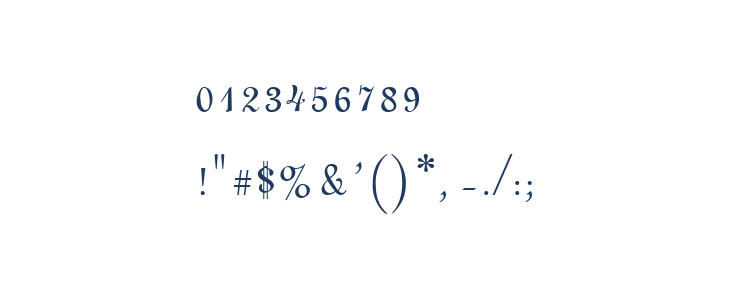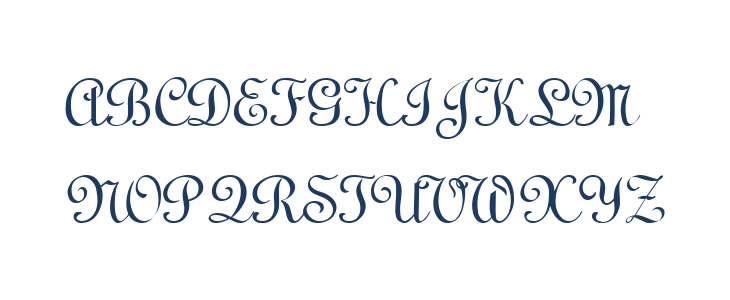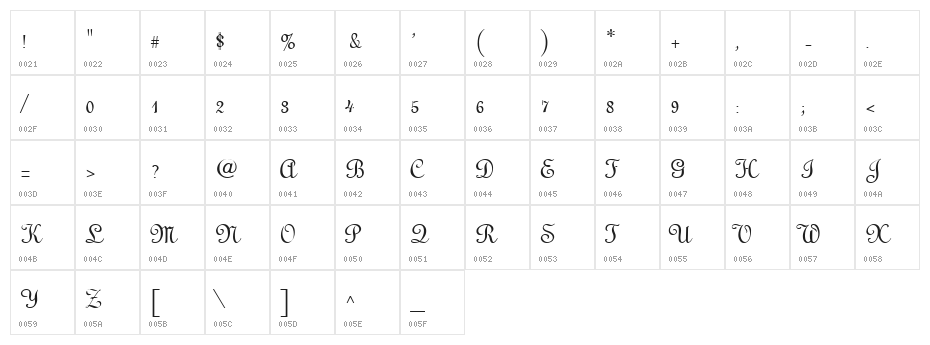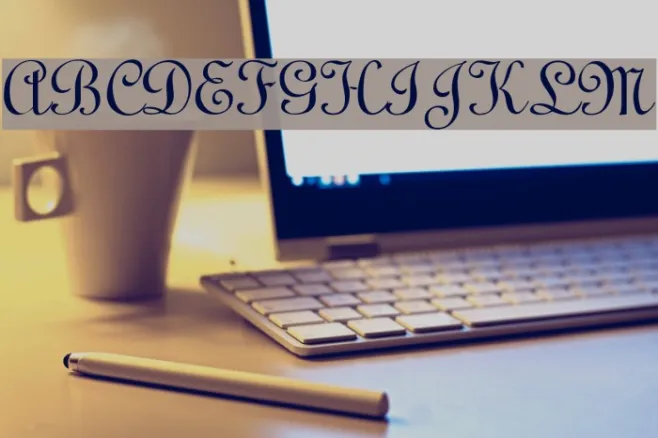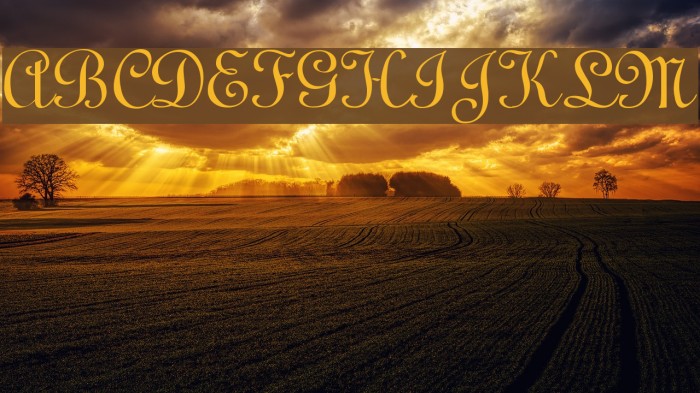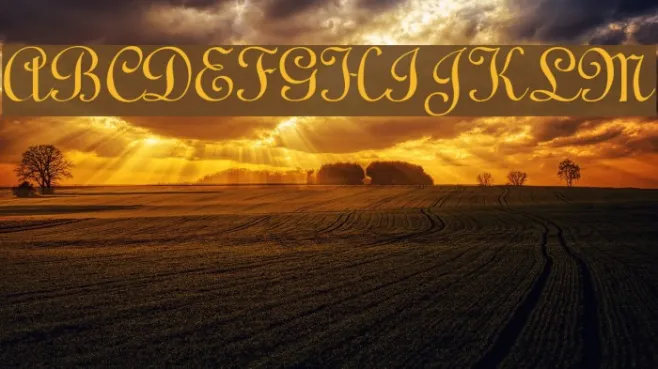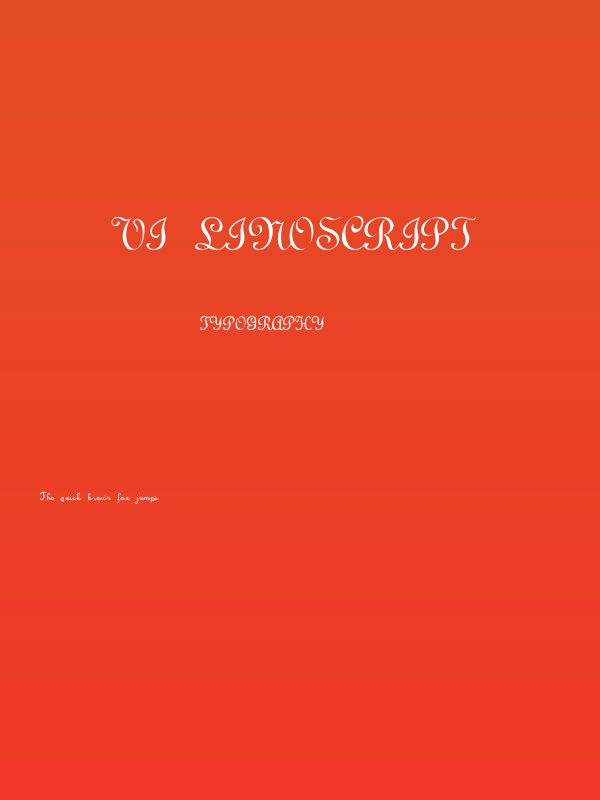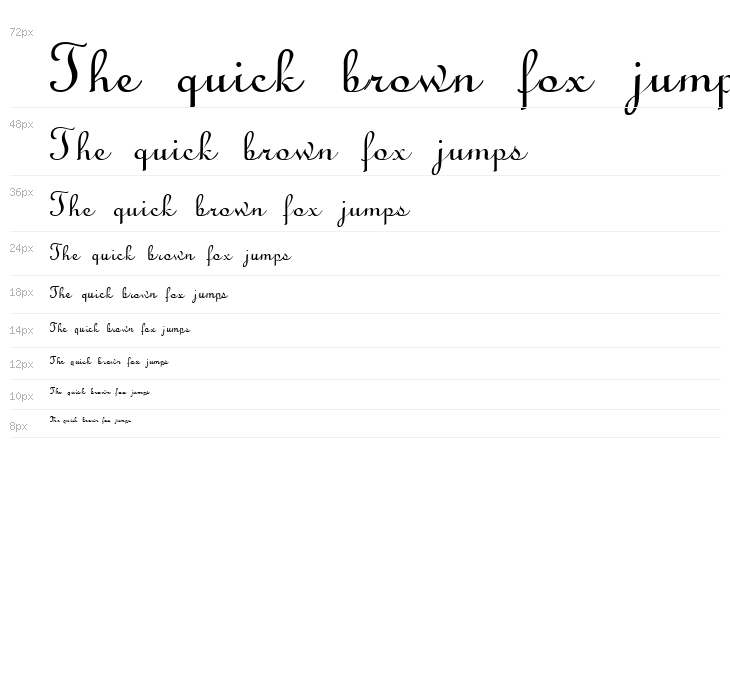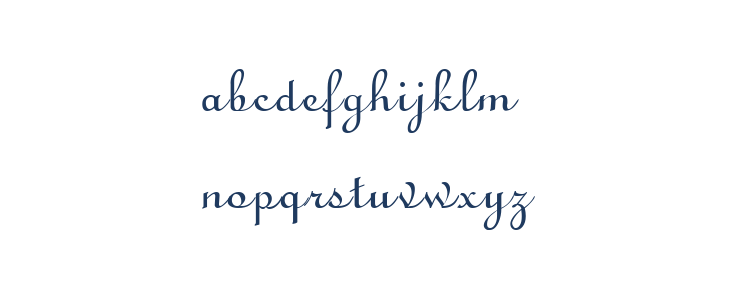
VI Linoscript Font
VI Linoscript Description
This elegant script font features flowing, connected letters with a classic and sophisticated appearance. The uppercase letters are ornate with intricate loops and flourishes, while the lowercase letters maintain a smooth, cursive style that enhances readability. The numerals are clear and distinct, complementing the overall aesthetic. Special characters are designed to match the decorative style, adding a cohesive look to any text. This font exudes a sense of refinement and grace, making it suitable for formal and elegant design projects.